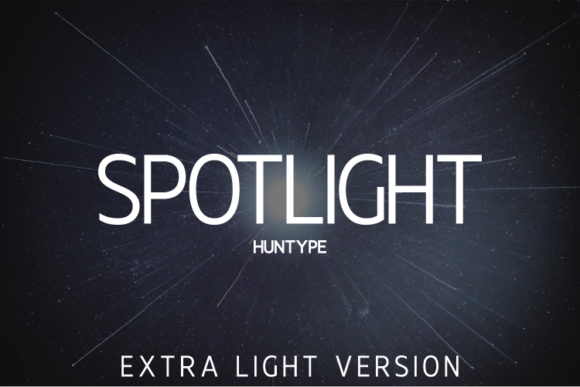
Dive into the world of typography with Spotlight Extra Light Font, a captivating sans serif font family designed by Huntype. Immerse yourself in the alluring contrast between its low-contrast strokes and meticulously balanced letterforms, a symphony of visual harmony designed to enhance any digital landscape.
Spotlight's essence lies in its simplicity and sharpness of form, a testament to its designer's pursuit of typographic perfection. Let your words shine with Spotlight, a font that exudes clarity and readability, making it the ideal choice for extensive text applications.
Unleash your creativity with Spotlight's versatility, a font that transcends the boundaries of traditional typography. With its ability to seamlessly transition from body text to captivating headlines, Spotlight empowers you to craft compelling narratives that resonate with your audience.
Elevate your designs with Spotlight, a font that captivates and enchants. Its distinctive character shines through in both digital and print media, making it the perfect choice for branding, web design, editorial layouts, and more.
Embrace Spotlight, a font that speaks volumes with its understated elegance. Experience the transformative power of typography as Spotlight breathes life into your creative endeavors. Let your words illuminate the world, one character at a time.